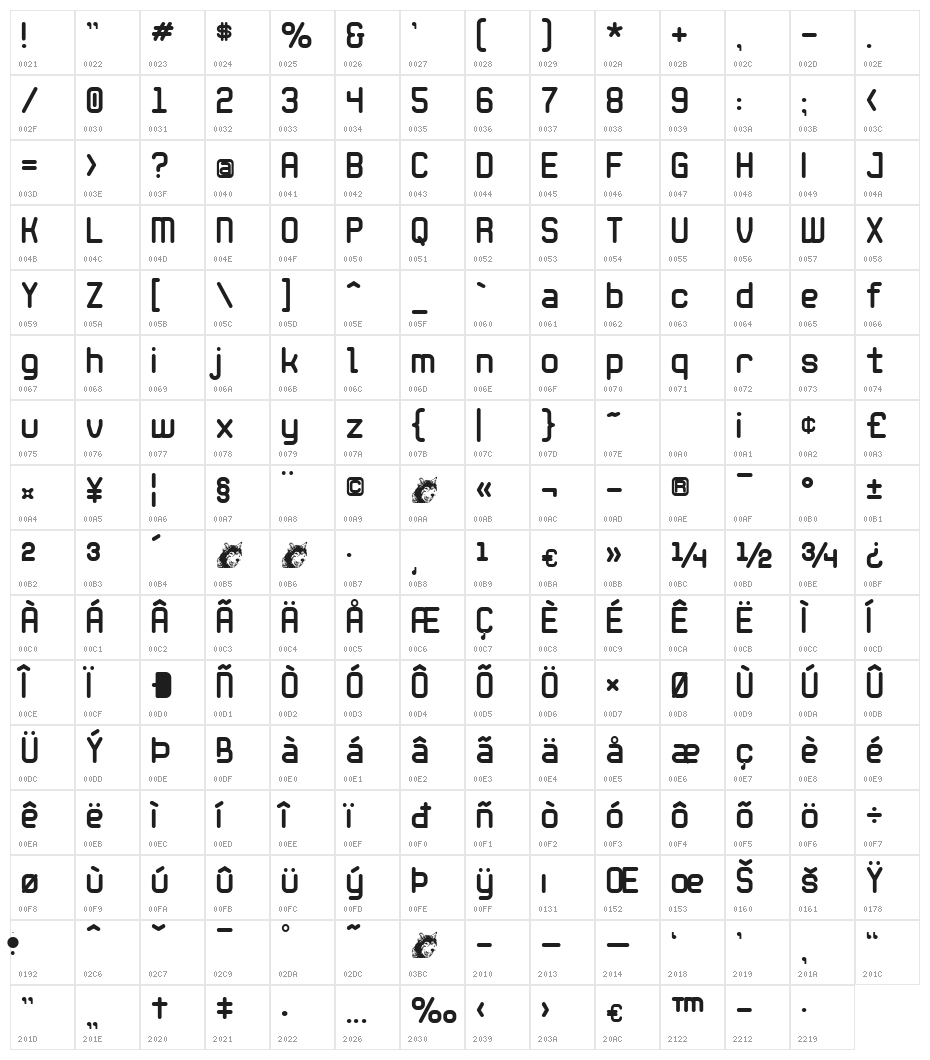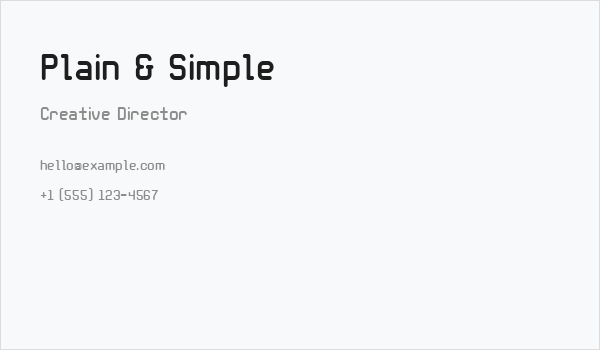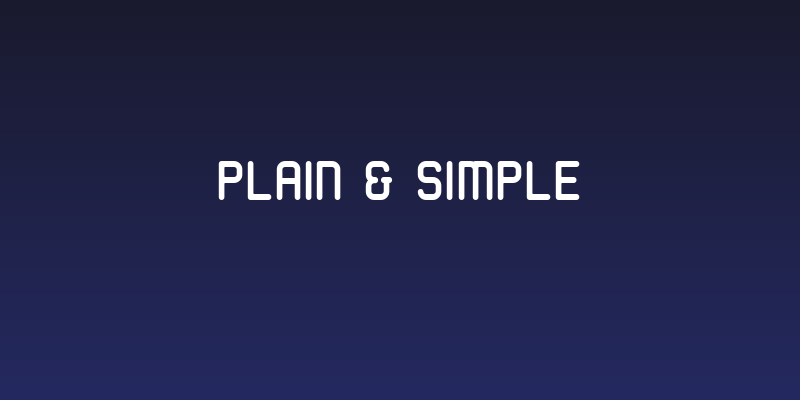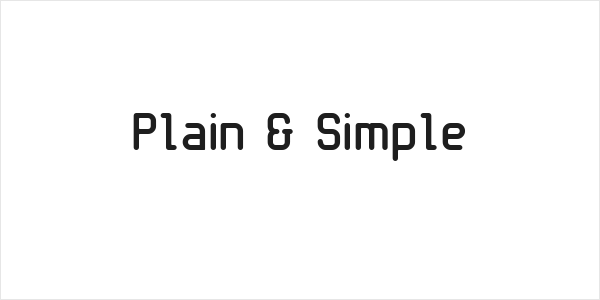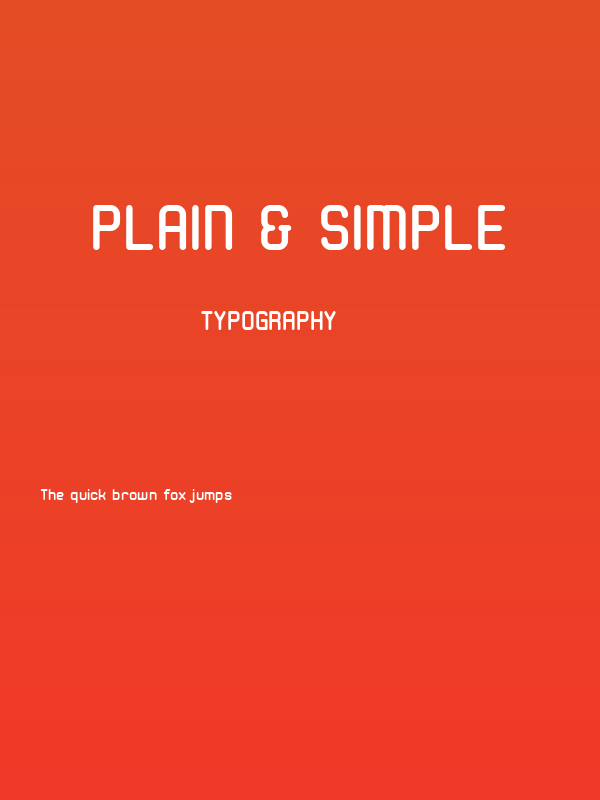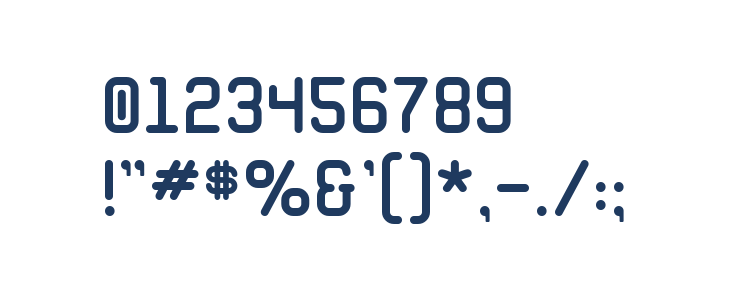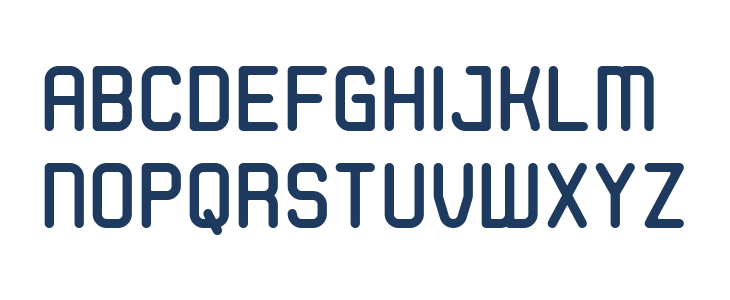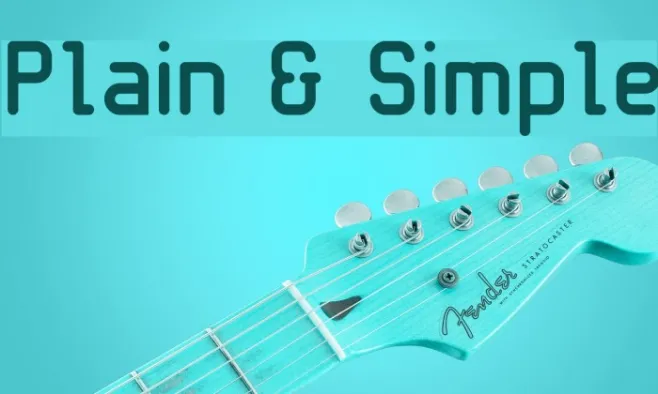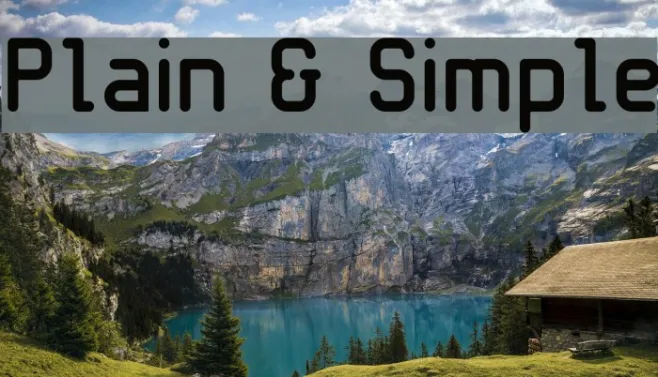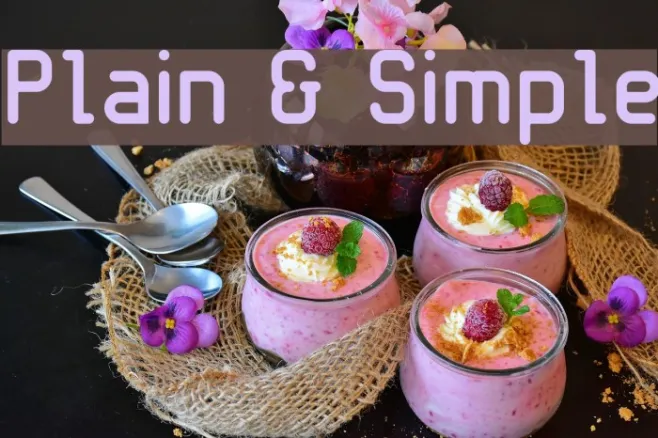
Plain & Simple Font
Plain & Simple Description
This font features a clean and modern design with rounded edges, giving it a friendly and approachable appearance. The characters are uniformly structured, providing a sense of balance and harmony. The uppercase and lowercase letters maintain a consistent style, with smooth curves and a slightly condensed form. The numerals are clear and legible, making them suitable for various applications. Special characters are well-integrated, maintaining the overall aesthetic of the font. Its simplicity and clarity make it versatile for both digital and print media.